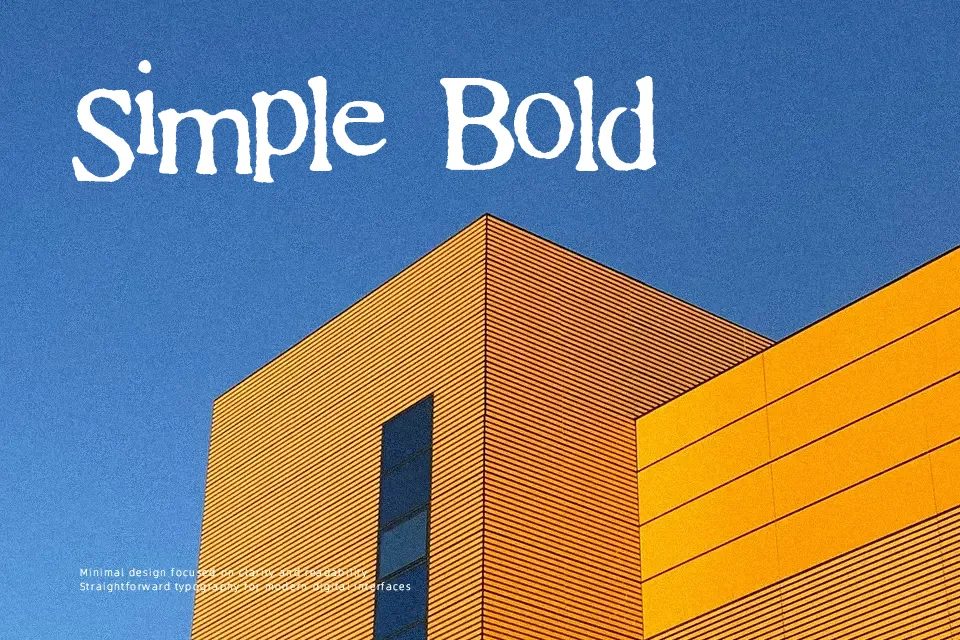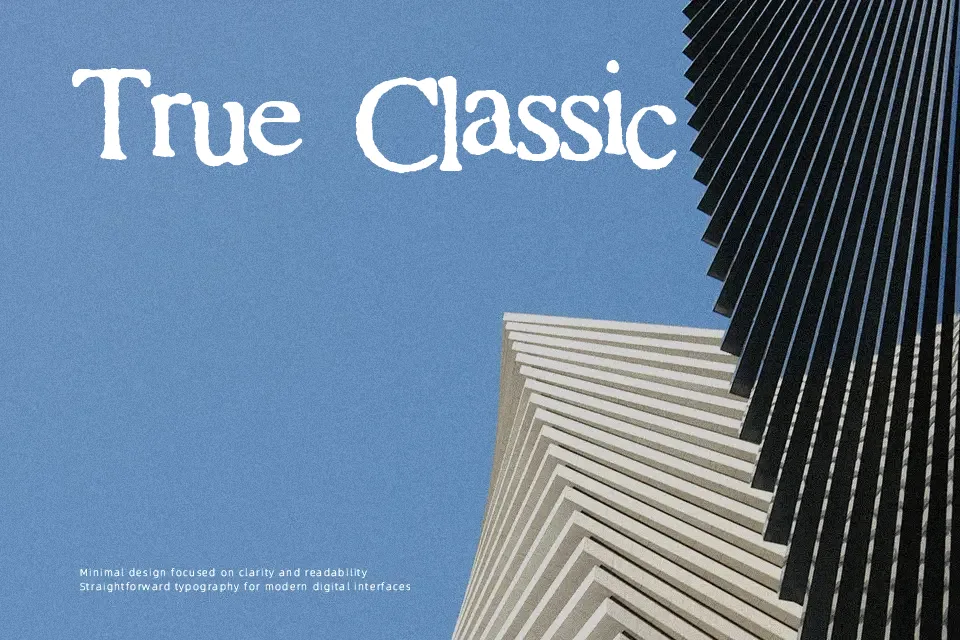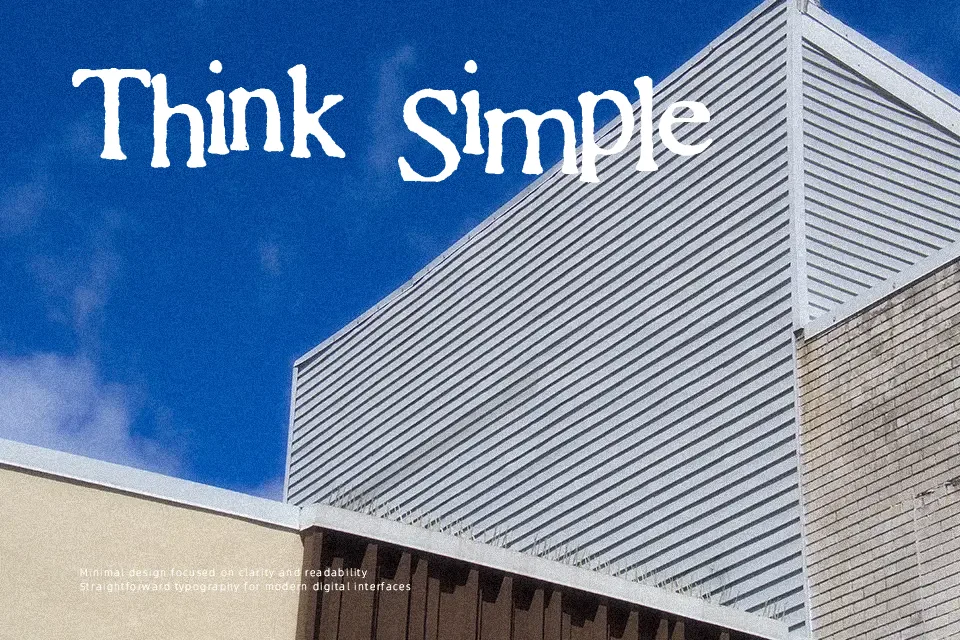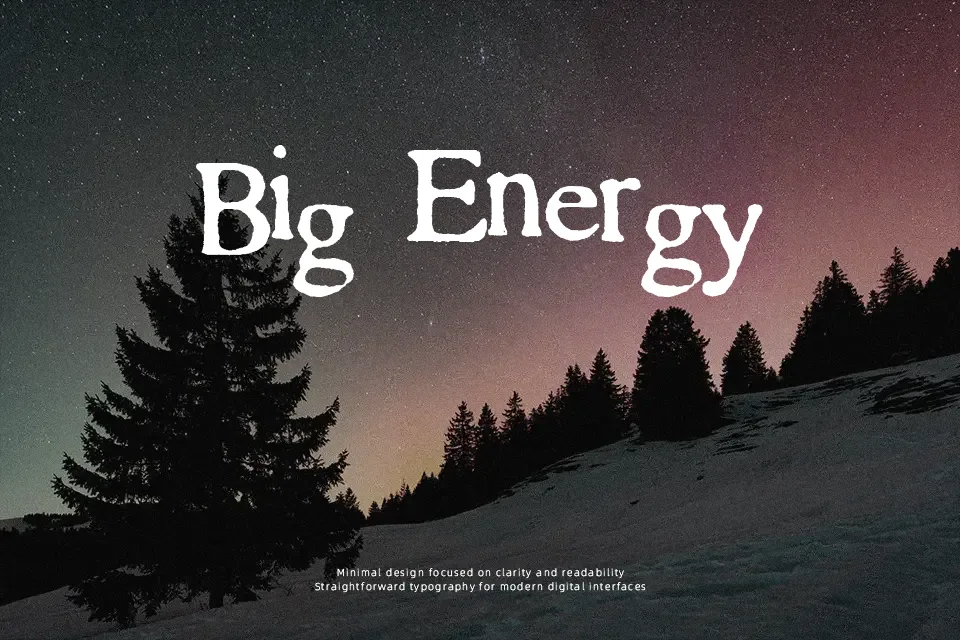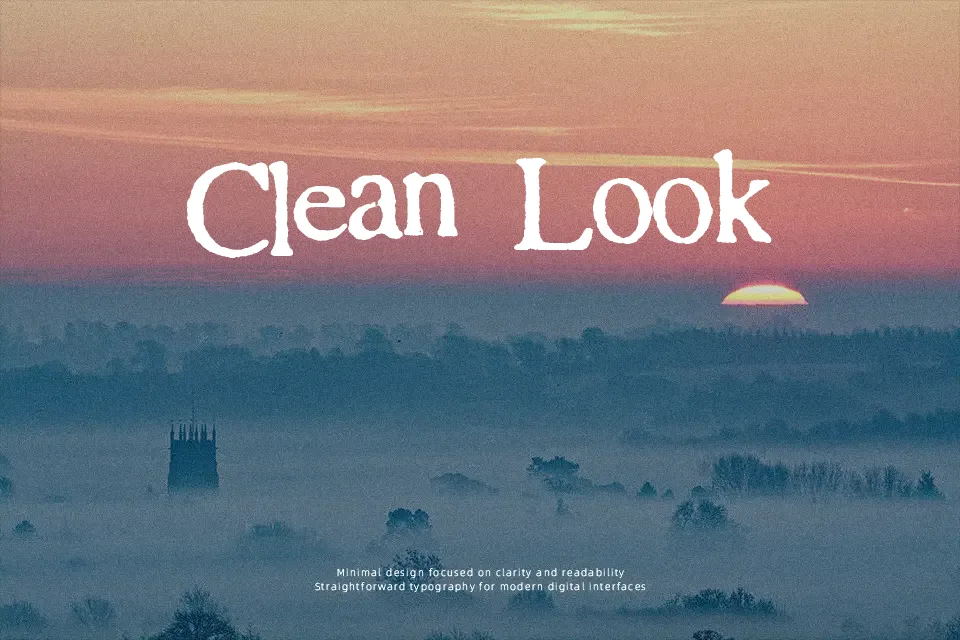
SA Cinta Font
Designed by Shellie in co
SA Cinta Font immediately establishes a chaotic and raw visual presence through its heavily textured strokes and erratic letter proportions. The deliberately irregular outlines and uneven character widths create a distressed rhythm that refuses to sit neatly on a conventional baseline. Open spacing between the letterforms attempts to balance the structural damage, preventing the heavier black areas from completely merging. The bold, unpolished strokes maintain striking visibility in large display text, providing an aggressive energy for alternative album artwork. However, the excessive decorative distortion becomes a significant obstacle at smaller sizes. Dense forms reduce comfort during extended reading, making the typeface entirely unsuitable for continuous paragraphs or detailed editorial columns.
alternative album artwork
grunge festival posters
distressed streetwear graphics
rebellious brand identities
Perfect for fashion, headline, and music, with a dramatic and decorative style.